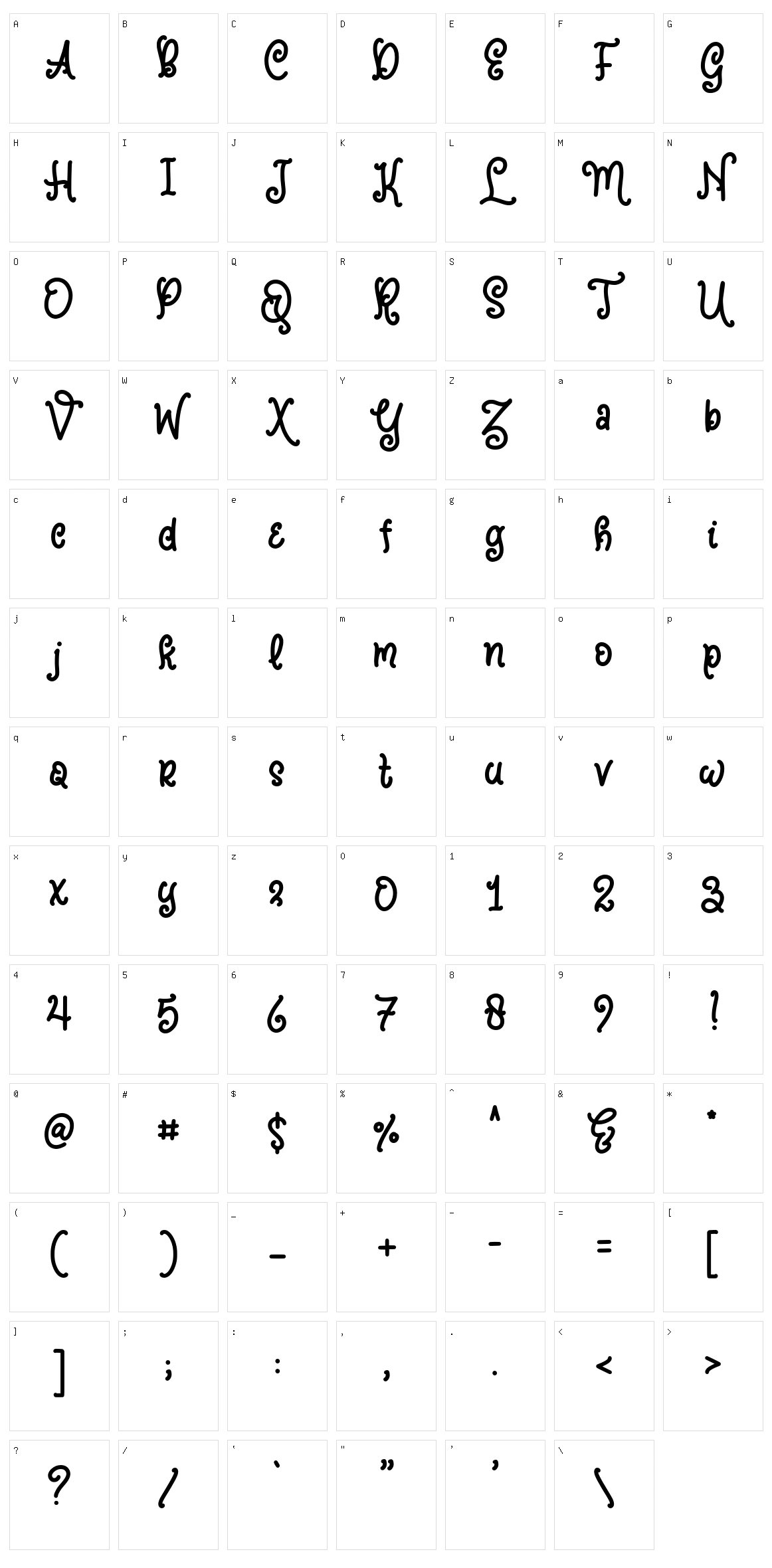
SWEET GARLIC
- swirly monoline font-
It comes with a lot of features :
- Every lowercase character have about 6 to 10 alternate
- Every uppercase character have 3 alternate
- 10 variations of an ampersand
- Swirly decorative typeface
- Multilingual Support
- PUA encoded